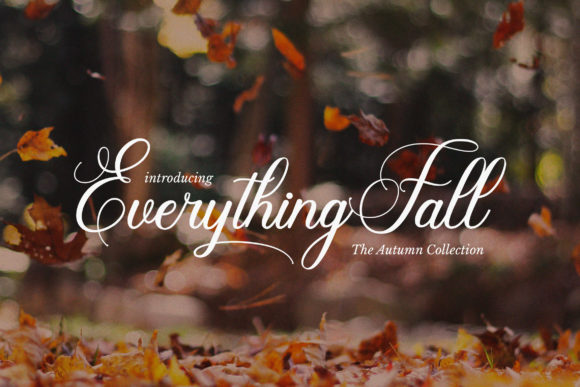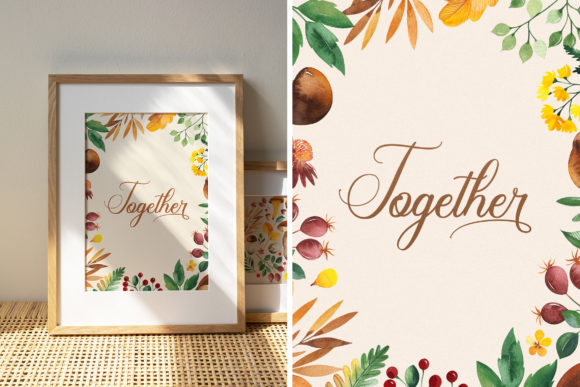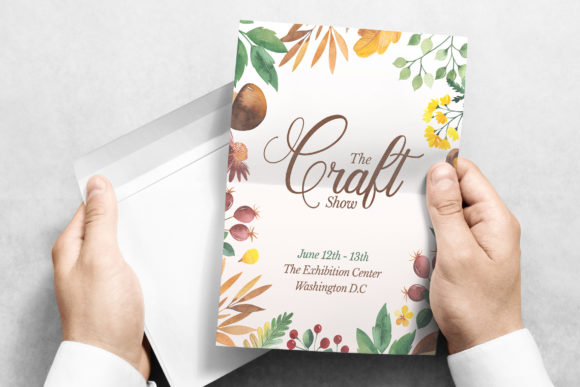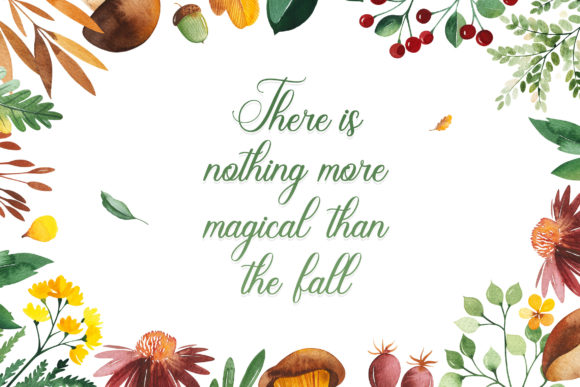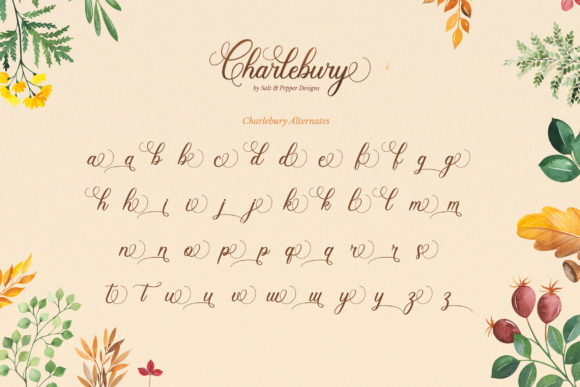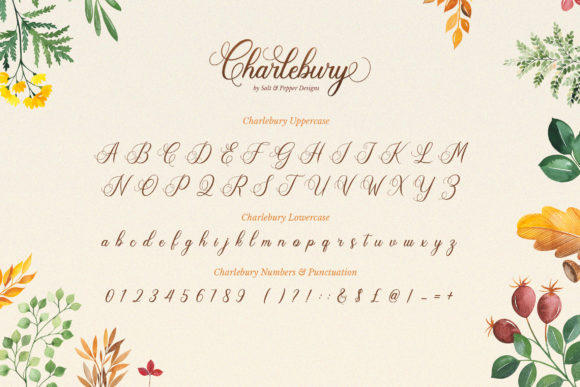
Unlock the Beauty of Your Designs with Charlbury Script Font
As a designer, there’s nothing quite like the thrill of bringing a project to life. You’re pouring your heart and soul into every detail, from the color palette to the typography. And then, it happens – you stumble upon the perfect font that elevates your design to the next level. For many of us, that font is the Charlbury Script Font.
This elegant script font is designed to add a touch of sophistication and whimsy to your projects. With its balanced and varied forms, the Charlbury Script Font is the perfect choice for anyone looking to add some visual interest to their designs. Whether you’re creating a wedding invitation, a branding package, or a marketing campaign, this font is sure to make a lasting impression.
Charlbury Script Font Features
- Unique Characteristics: Elegant, handwritten feel with subtle flourishes and swashes; suitable for invitations, wedding stationery, and other high-end designs
Designer Review: Charlbury Script Font
Overall, I think Charlbury Script Font is a beautiful and elegant script font. It’s perfect for adding a touch of sophistication to your designs. ✨ The flowing connections between the letters make it feel very natural and easy to read. ✨ I love how the font is versatile and can be used for both formal and informal designs.
One of the things that works particularly well is the font’s ability to add a sense of personality to your designs. It’s perfect for creating a unique and memorable brand identity. ✨ The font also has a great range of weights, from light to bold, which makes it easy to use in a variety of design contexts.
Limitsations:
- ⚠️ Limited language support: The font may not be available in as many languages as other fonts, which could be a limitation for designers working on multilingual projects.
- ⚠️ Not suitable for small font sizes: The font is best used at larger sizes, as the connections between the letters can become difficult to read at smaller sizes.
Overall, I think Charlbury Script Font is a great choice for designers looking to add a touch of elegance and sophistication to their designs. While it may have some limitations, it’s a beautiful and versatile font that can be used in a variety of design contexts.
Charlbury Script Font is ideal for creating a vintage or rustic look in your designs. Use it for titles, headings, and body text in invitations, posters, and social media graphics. It pairs well with other script fonts and serif fonts. Experiment with different font sizes, colors, and combinations to achieve the desired look.